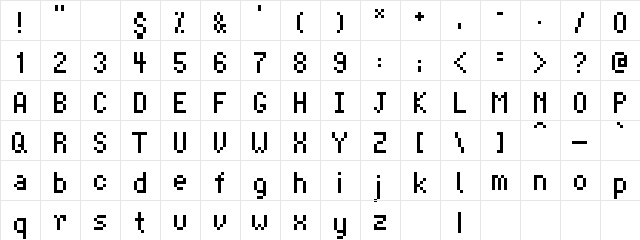
fontline6_1 Regular
Design Context for fontline6_1 Typeface
fontline6_1 offers clean, dependable letterforms without strong stylistic allegiance, making it a practical choice for designers who need flexibility.